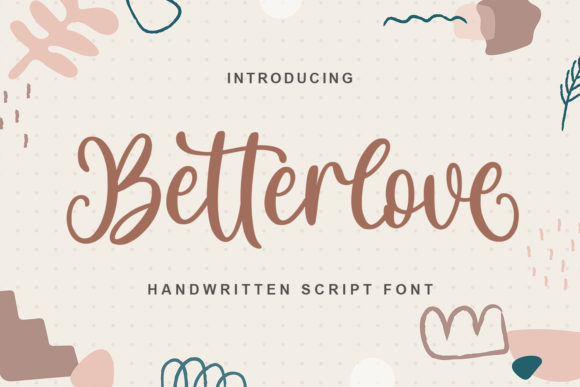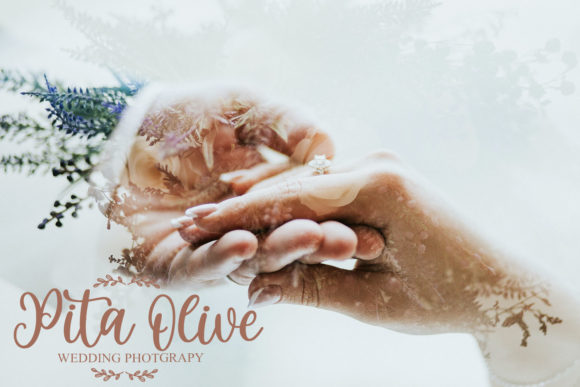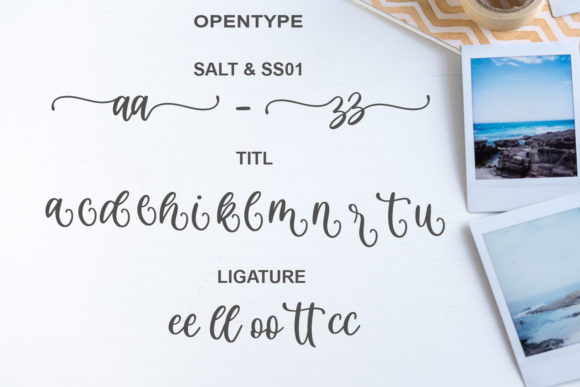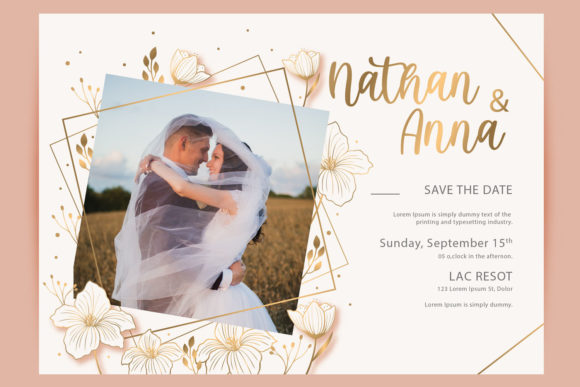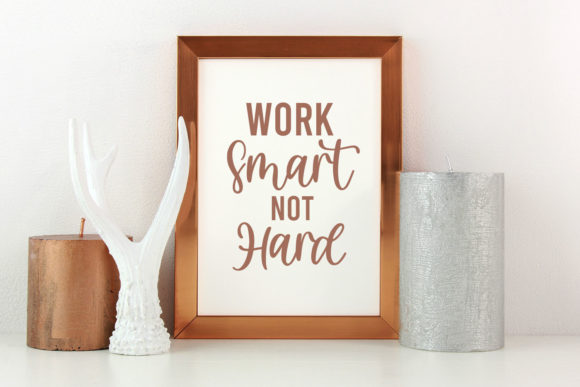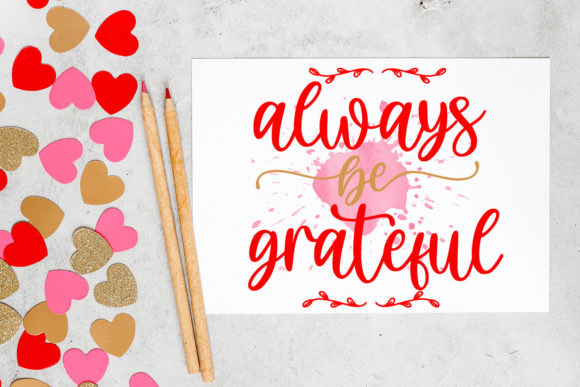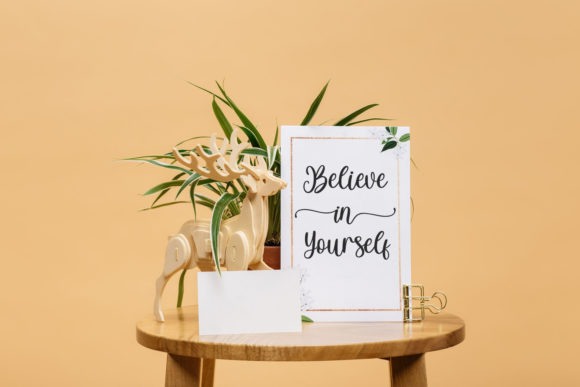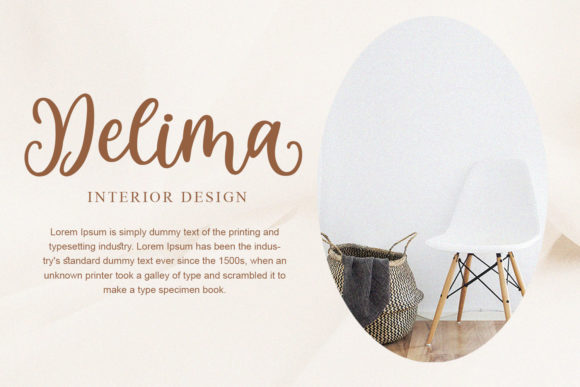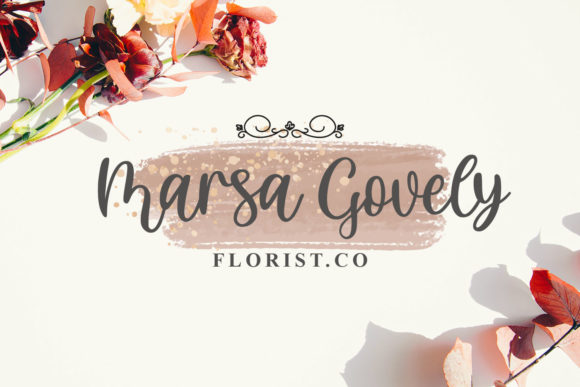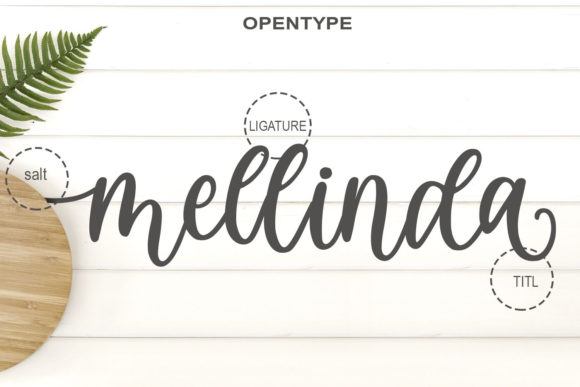
BetterLove Font
About BetterLove Font
BetterLove is a lovely and delicate script font that exudes elegance and class. This font was particularly crafted for those who need a beautiful and refreshing look to their designs.